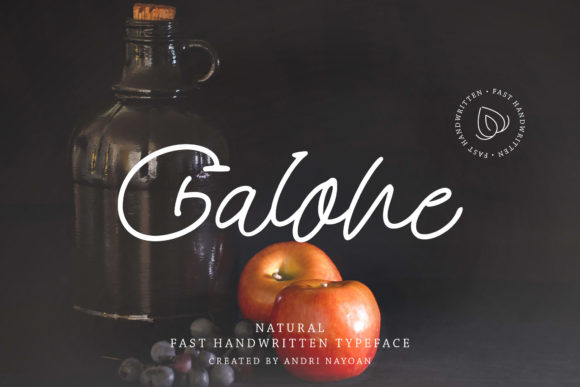
Prepare yourself to dive into the enchanting realm of typography. Step into the world of Galone Font, the epitome of grace and sophistication.
With its captivating strokes and mesmerizing curves, Galone Font is the embodiment of elegance and artistry. Every letter, a work of art, invites you on a journey of visual exploration.
Let Galone Font whisk you away to a world of dreams and enchantment. Its ethereal design evokes a sense of timeless beauty, capturing the essence of heartfelt emotions.
Unleash your creativity and let your imagination soar as you embrace the endless possibilities that await you with Galone Font. Its versatile nature allows you to craft designs that resonate with your unique vision.
With Galone Font, you have a passport to a world of artistic expression. Its exquisite design adds a touch of magic to any project, allowing you to create designs that leave a lasting impression.
Experience the allure of Galone Font today and elevate your designs to new heights of creativity. Enter the realm of unmatched beauty and let your words dance with grace and elegance.